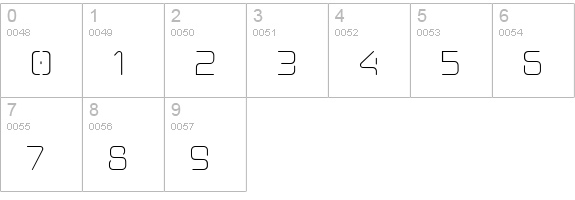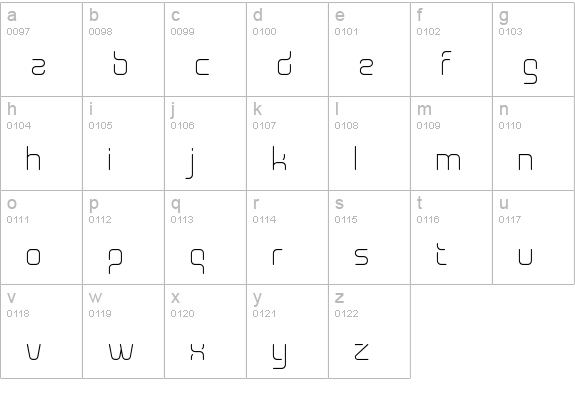
Aunchanted Thin is a delicate, low-contrast variant in the Aunchanted typeface family \xE2\x80\x94 well suited to fashion editorial, minimal branding, and high-contrast display.
Aunchanted Thin font is a whimsical and elegant typeface that will add a touch of magic to your designs. Its delicate and enchanting appearance makes it perfect for projects that require a sophisticated and mystical vibe. The thin strokes and intricate details of this font create a visually appealing look that is sure to captivate your audience. Best of all, Aunchanted Thin font is completely free to download at FontsMarket.com! Whether you're working on a branding project, invitation, or any other creative endeavor, this font will bring a unique and enchanting quality to your work. Don't miss out on the opportunity to add a touch of magic to your designs with Aunchanted Thin font, available for free download now.